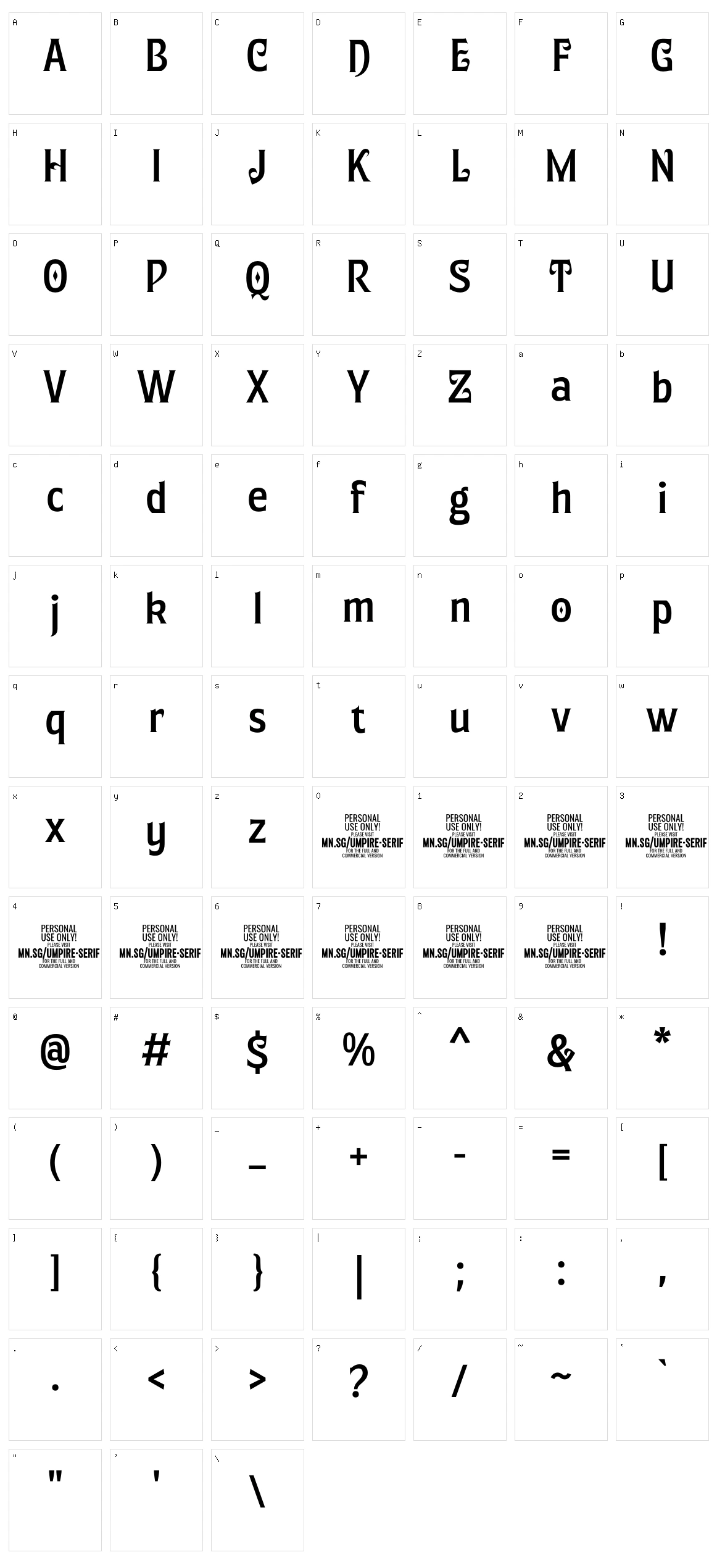
Umpire Serif is a heavy sans-serif immersed in Victorian grandeur.
This classy typeface stands tall and unyielding, exuding a kingly confidence that commands respect. Every letter carved is a testament to its solid and heavy foundation, echoing the decorative prowess of a bygone era. With its bold demeanor, the typeface effortlessly portrays nobility and pride. It's not merely decorative; it's regal. From the swash flourishes that dance with aristocratic elegance to the clean letters that speak of uncompromised authority, Umpire Serif is both a parade of pomp and a symbol of steadfastness.
The font is built with advanced OpenType functionality and has a guaranteed top-notch quality, containing stylistic and contextual alternates, ligatures, and more features; all to give you full control and customizability. It has extensive lingual support, covering all Latin-based languages, from Northern Europe to South Africa, from America to South-East Asia. It contains all characters and symbols you'll ever need, including all punctuation and numbers.
Behind this majestic creation is Mans Greback. Known for capturing emotions and stories in every font, with Umpire Serif, he's meticulously crafted a royal decree in typographic form. The plethora of alternates ensures versatility, allowing designers to choose between ornate opulence and refined restraint. In the hands of the right designer, this typeface transforms words into coronations.